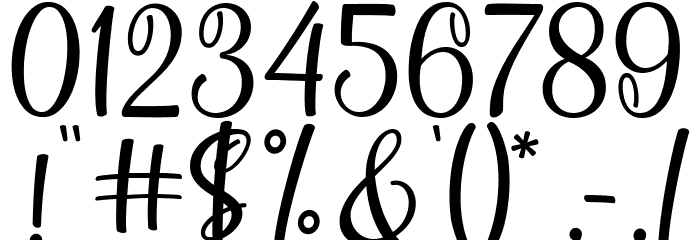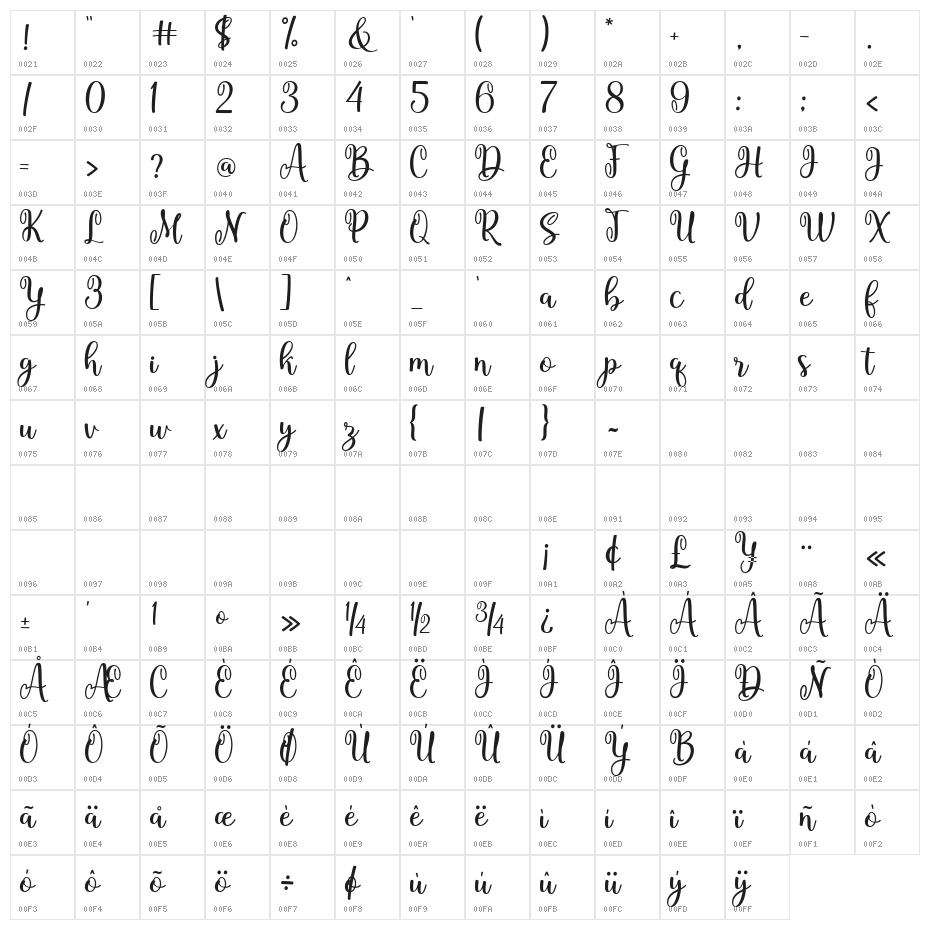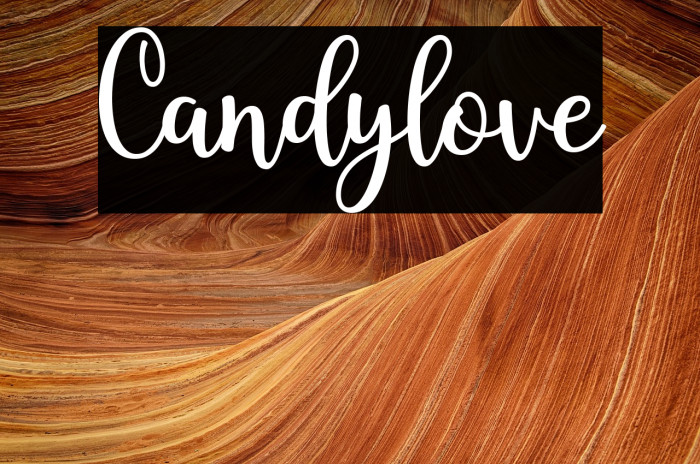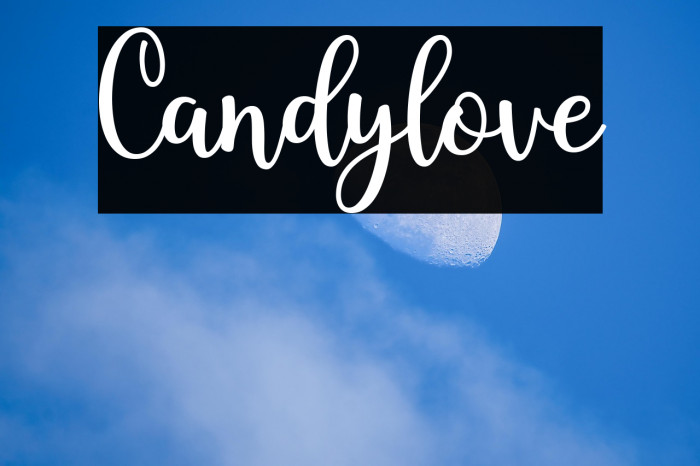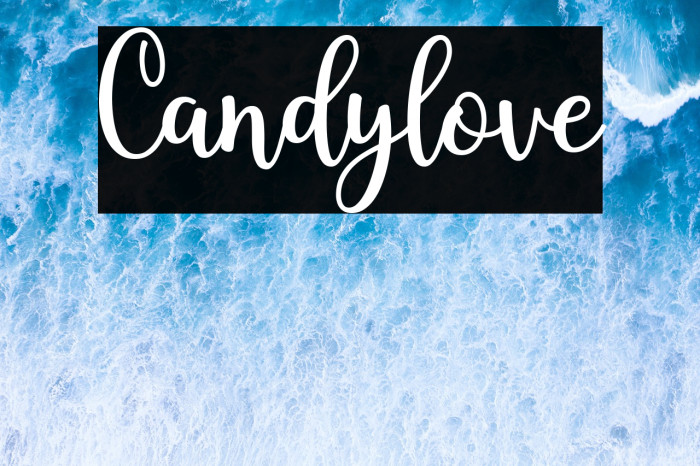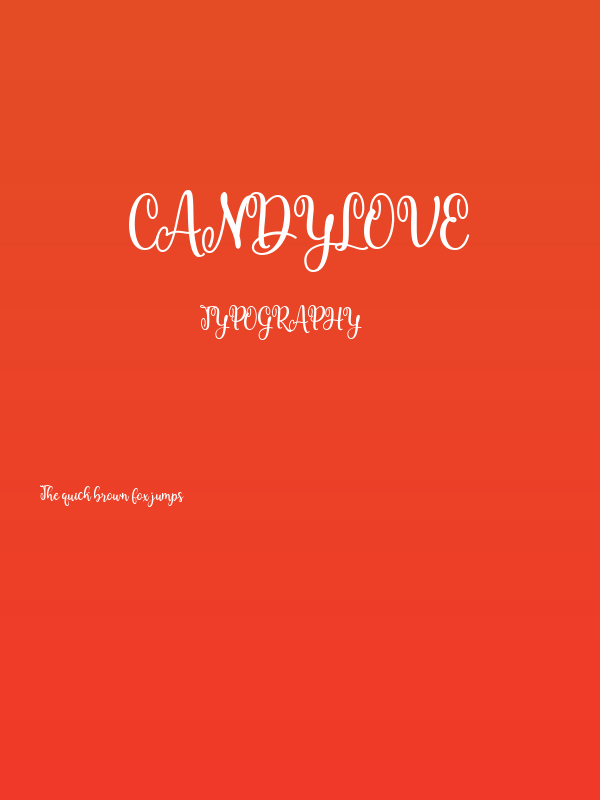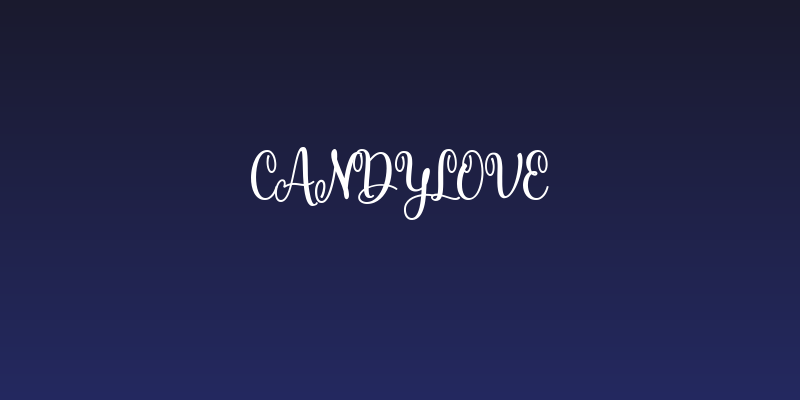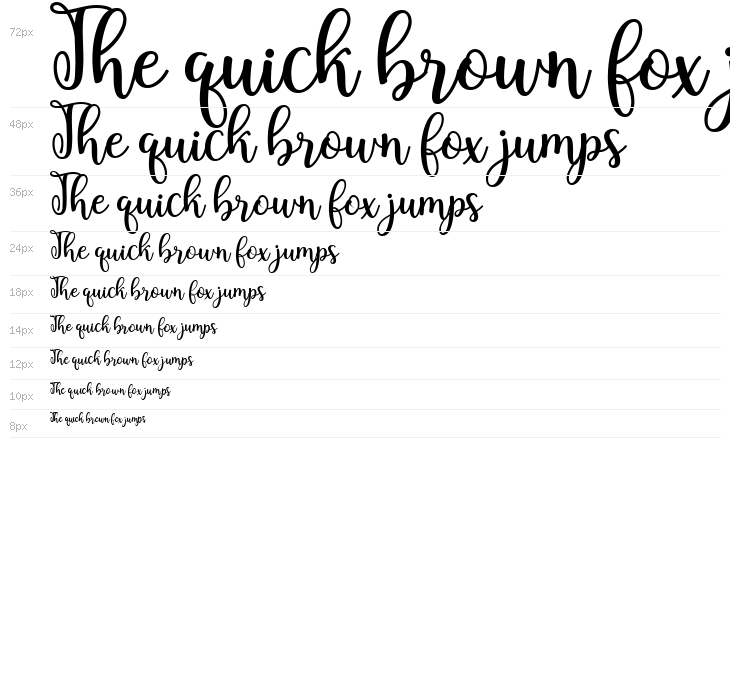
Candylove Font
Candylove Description
This font features a playful and whimsical script style, characterized by its flowing, interconnected letters. The uppercase letters exhibit a charming looped design, while the lowercase letters maintain a consistent, smooth flow. The numerals are bold and rounded, complementing the overall lively aesthetic. Special characters are creatively integrated, maintaining the font's cohesive style. The strokes are moderately thick, providing a balanced contrast that enhances readability while preserving the decorative nature of the script.
| Proposed Projects | Ideal for wedding invitations, greeting cards, playful branding, and decorative posters. |